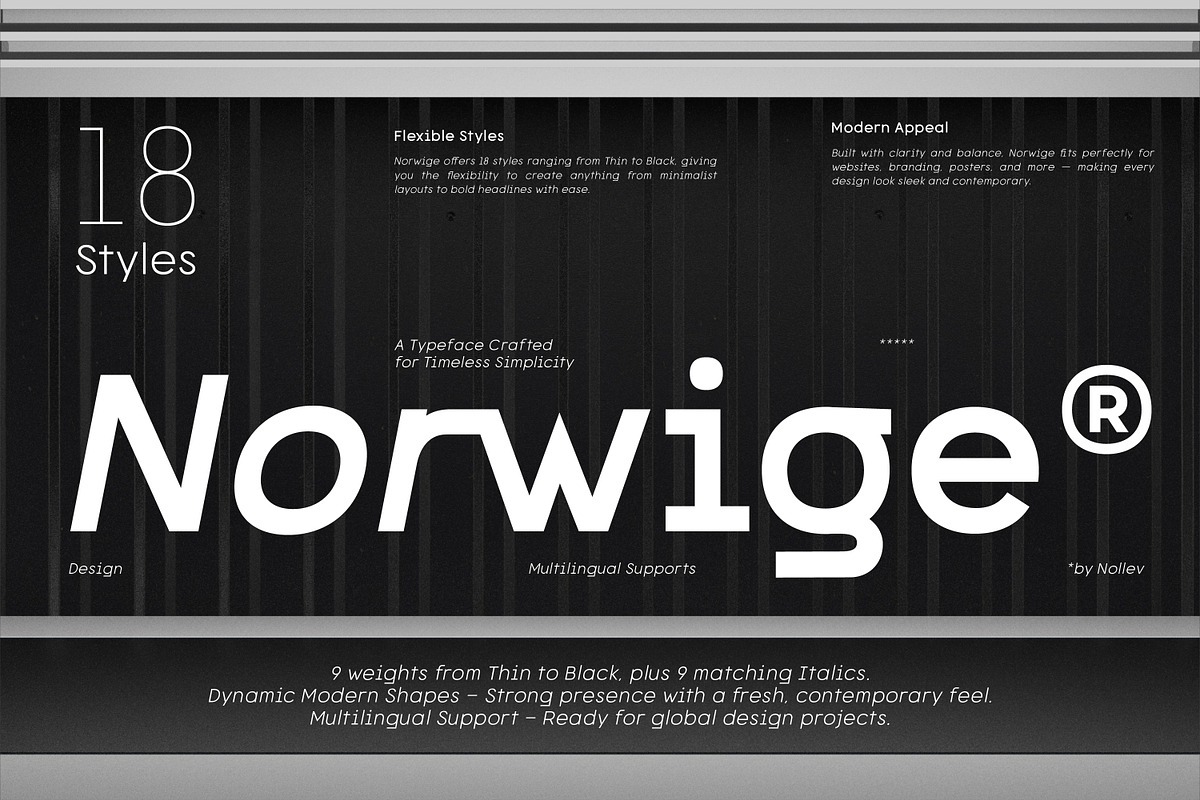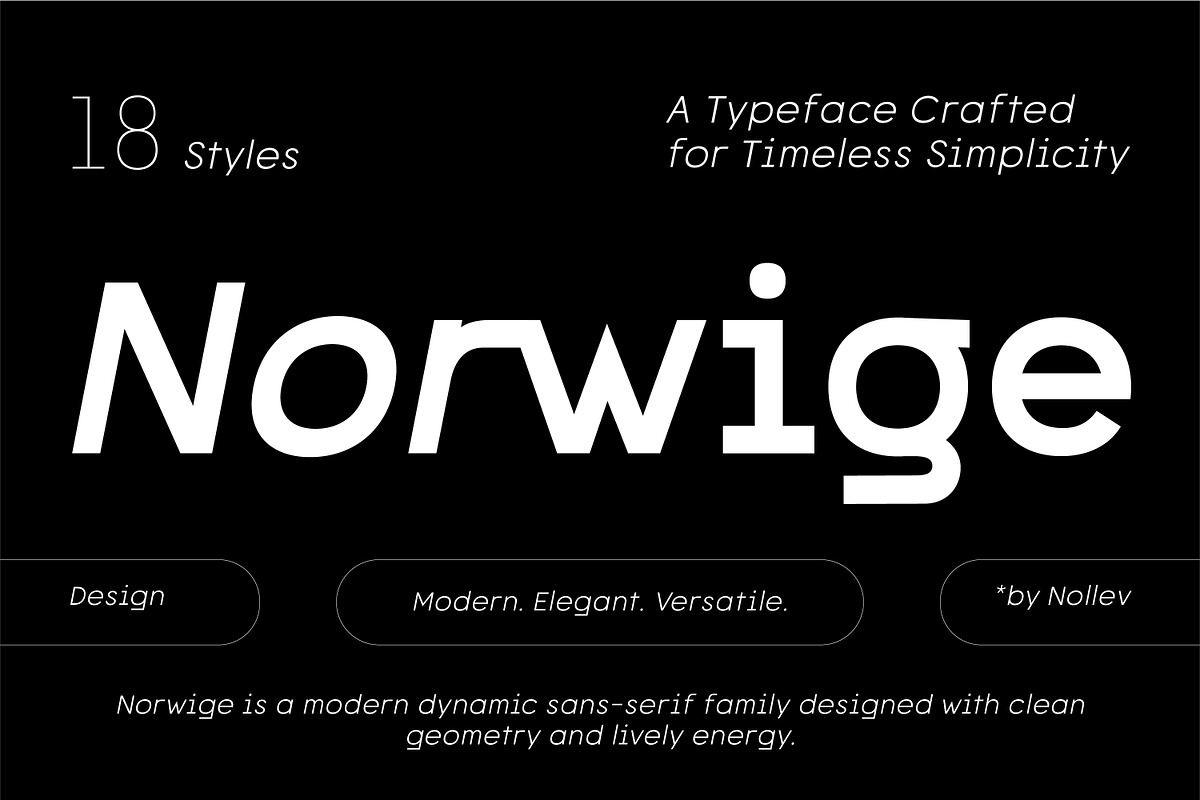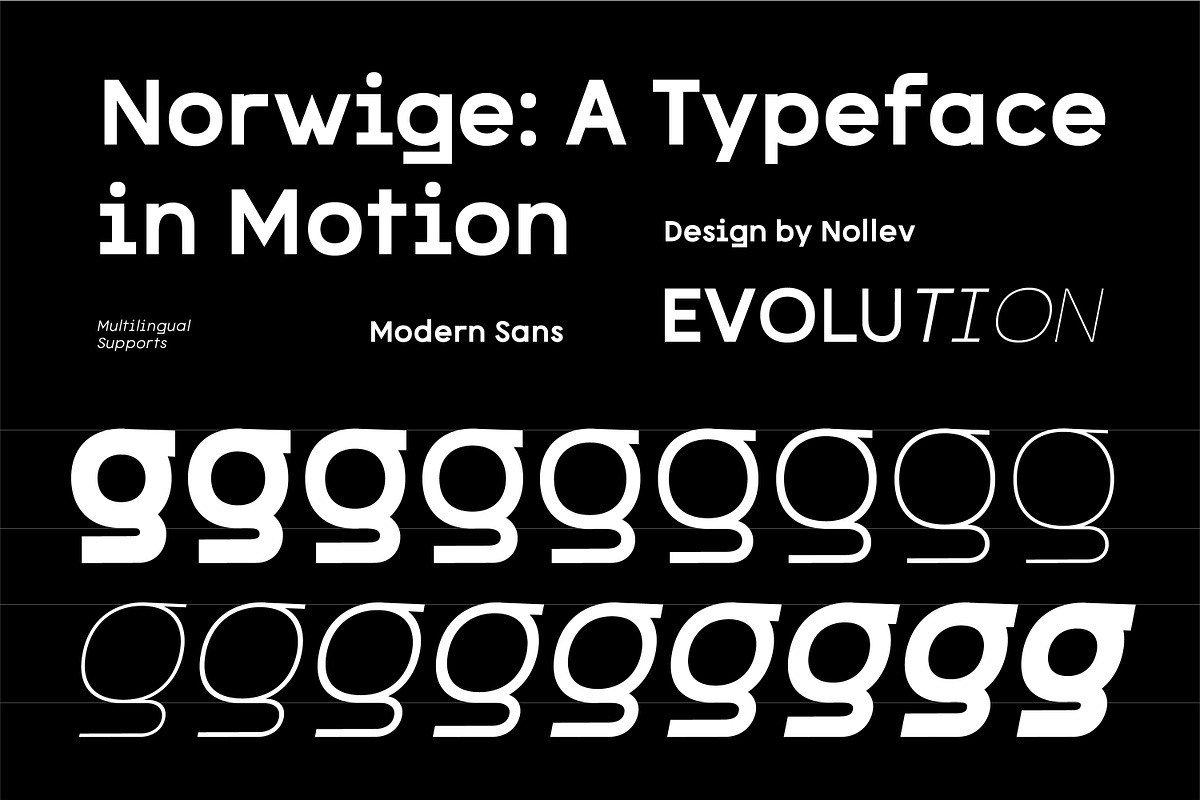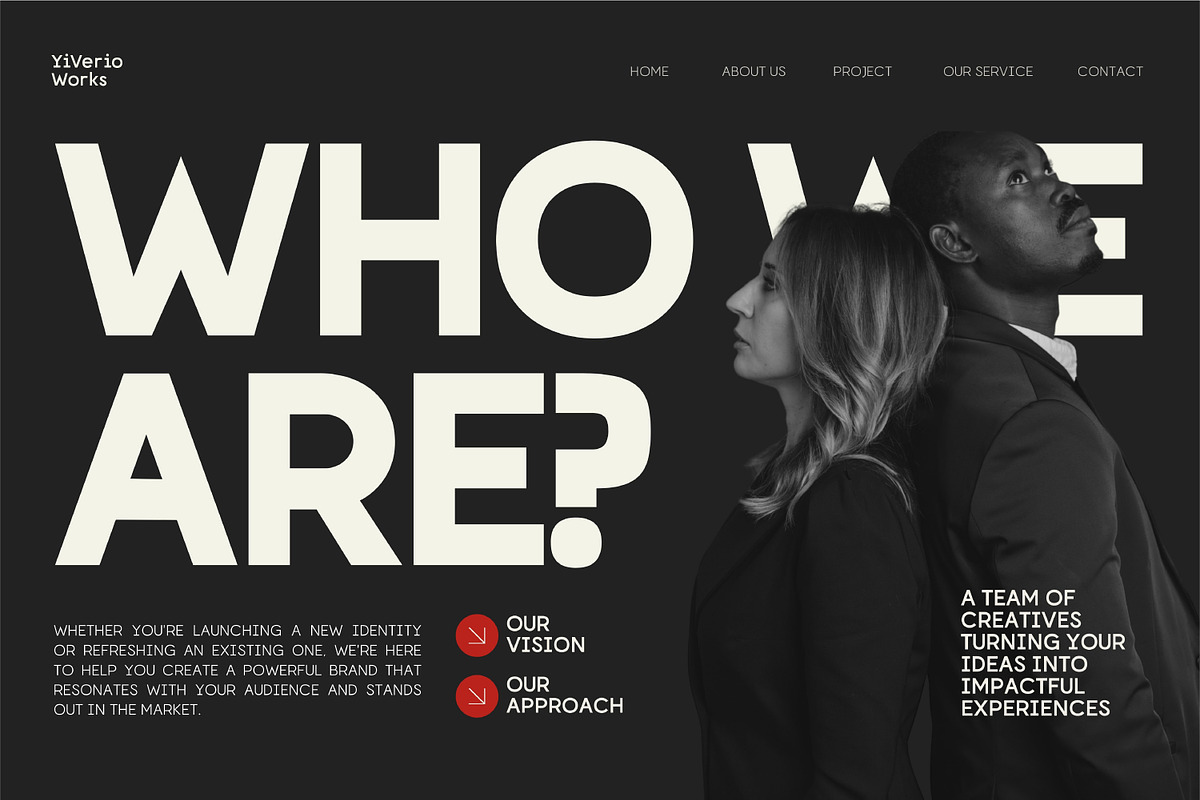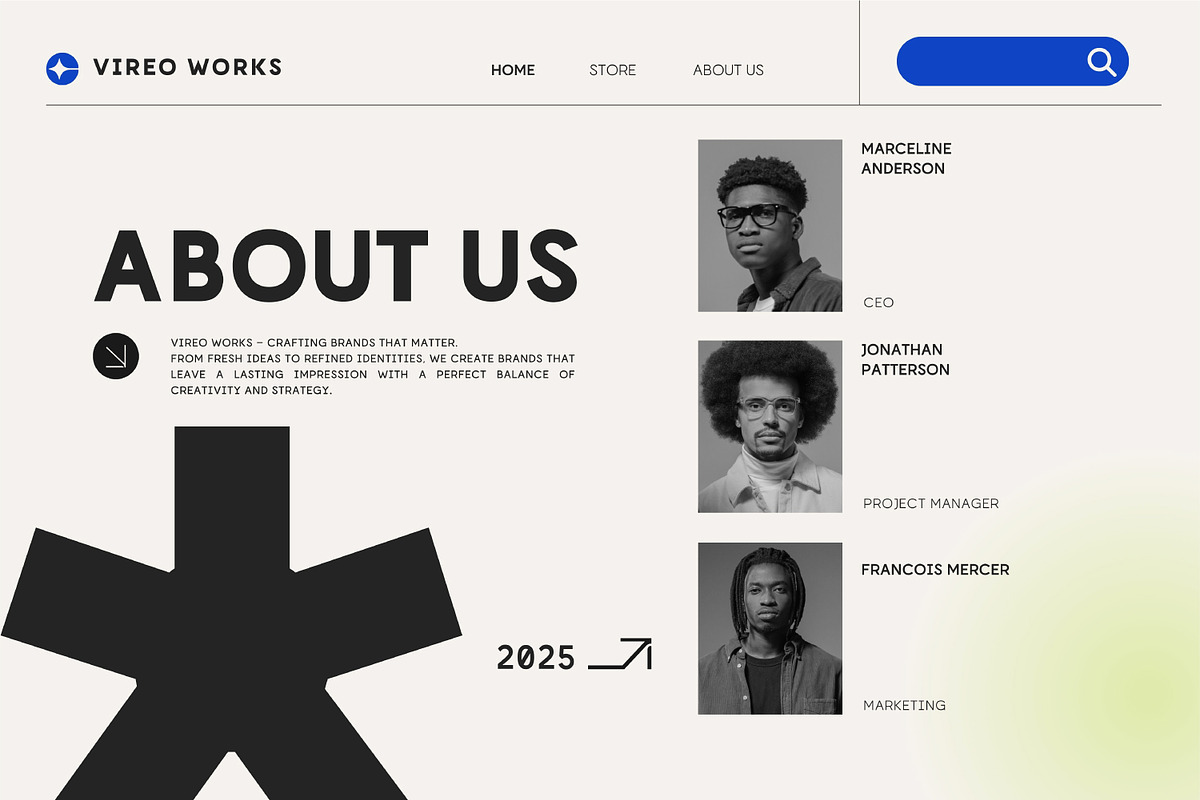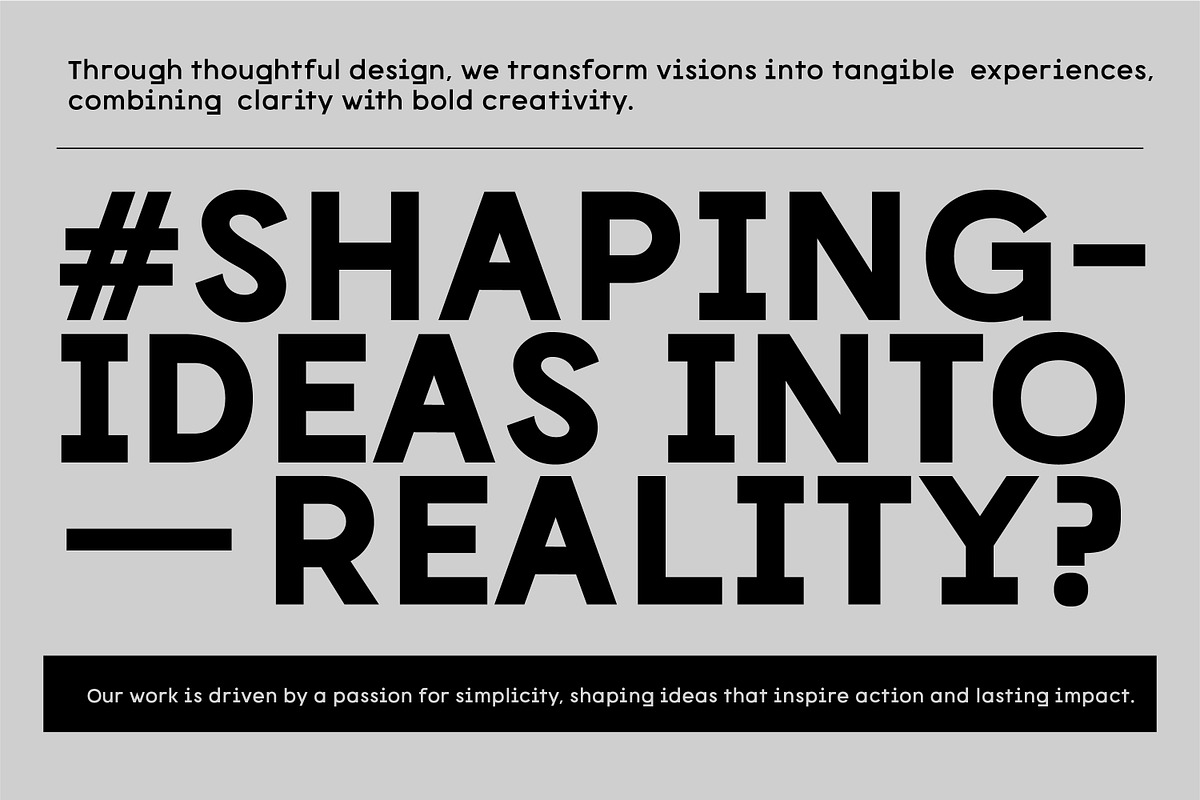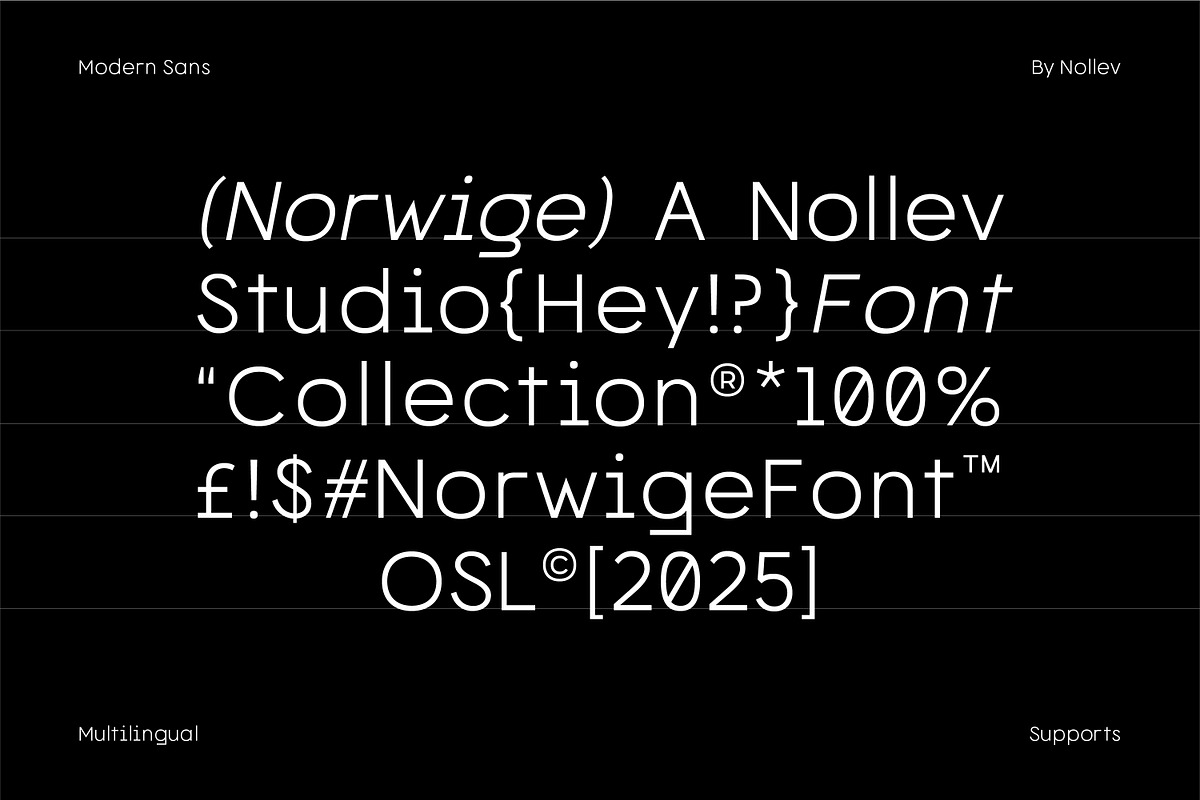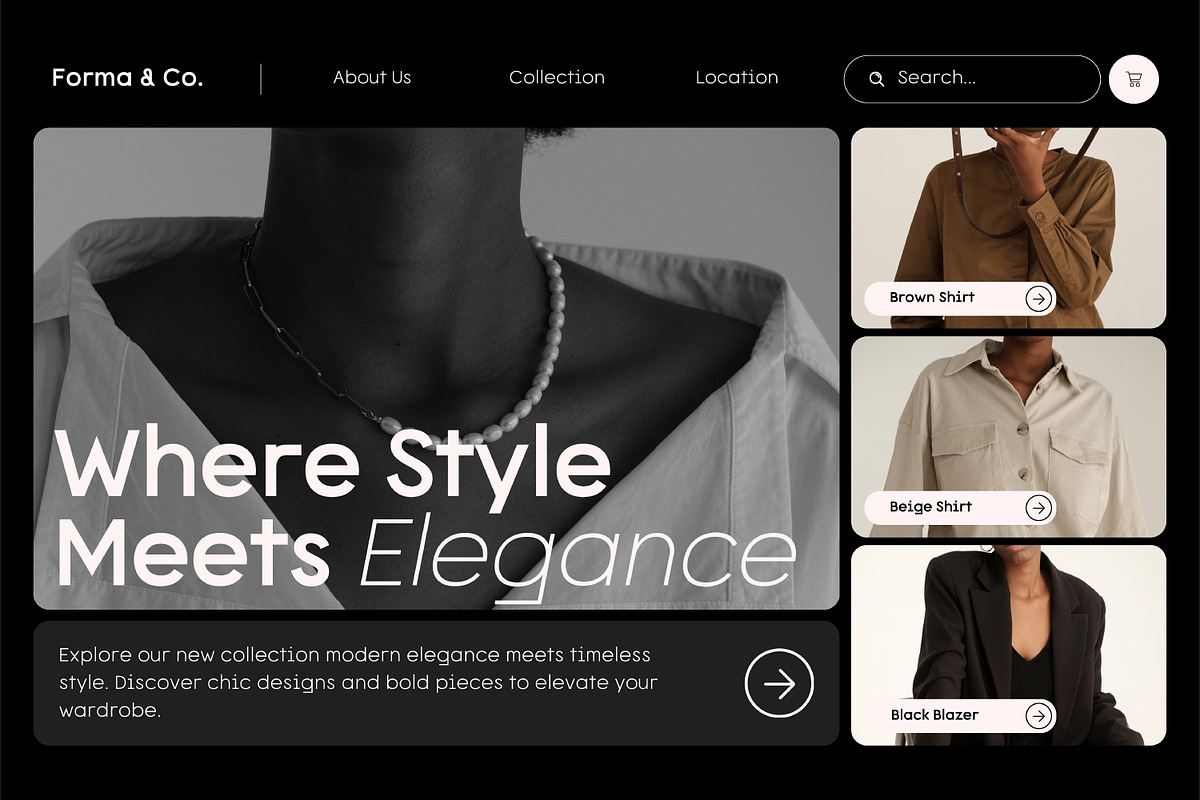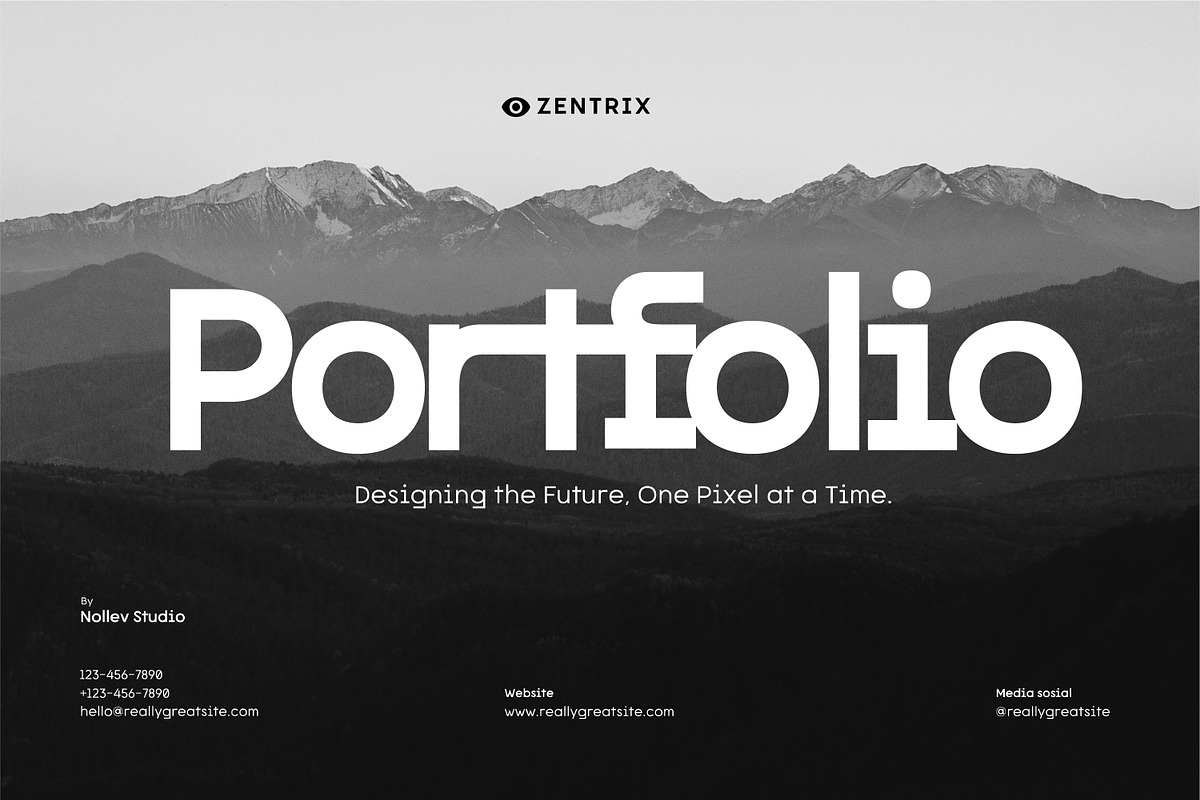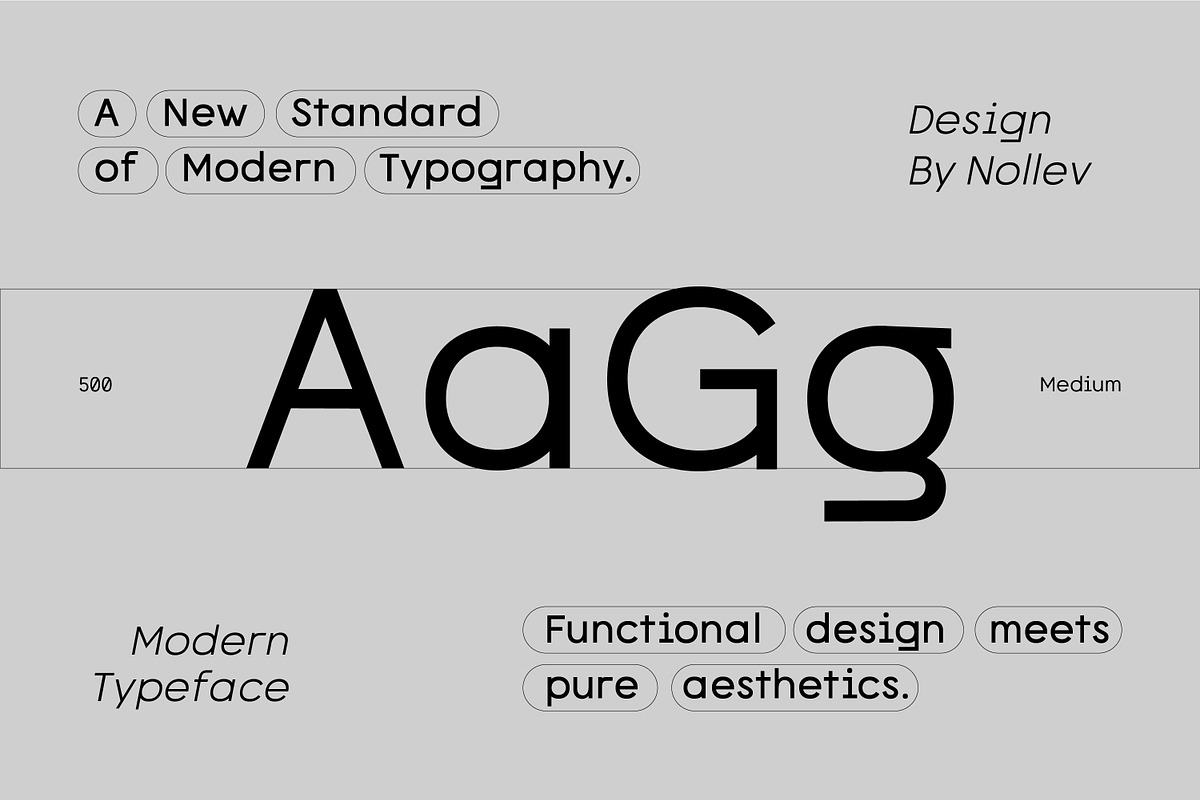
Norwige – Modern Geometric Sans
Norwige is a modern dynamic sans-serif family designed with clean geometry and lively energy. With 18 versatile styles — from Thin to Black, plus matching Italics — Norwige is perfect for bold branding, editorial layouts, and digital experiences.
- ✨ 18 Font Styles – 9 weights from Thin to Black, plus 9 matching Italics.
- ✨ Dynamic Modern Shapes – Strong presence with a fresh, contemporary feel.
- ✨ Multilingual Support – Ready for global design projects.
- Modern Sans-Serif Font Family – Clean, geometric, and highly flexible.
- Made for Branding – Ideal for logos, websites, packaging, and digital products.
- Designed for Impact – Perfect balance between clarity and visual motion.
✨ Norwige – Where clarity meets motion. Energize your design with precision. ✨